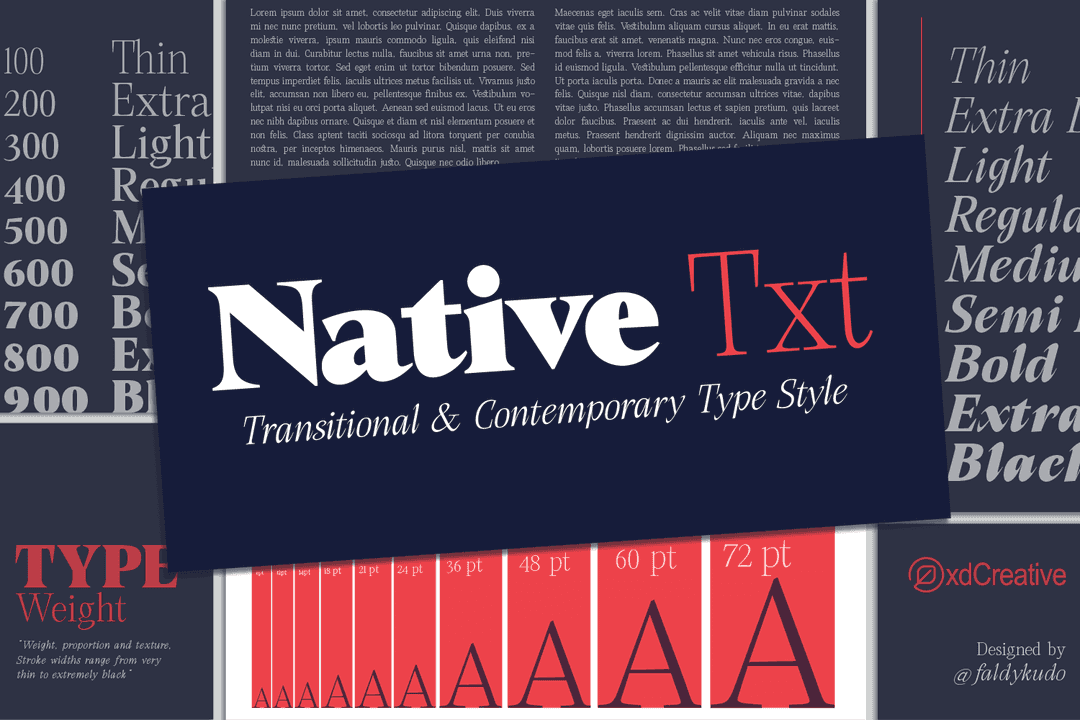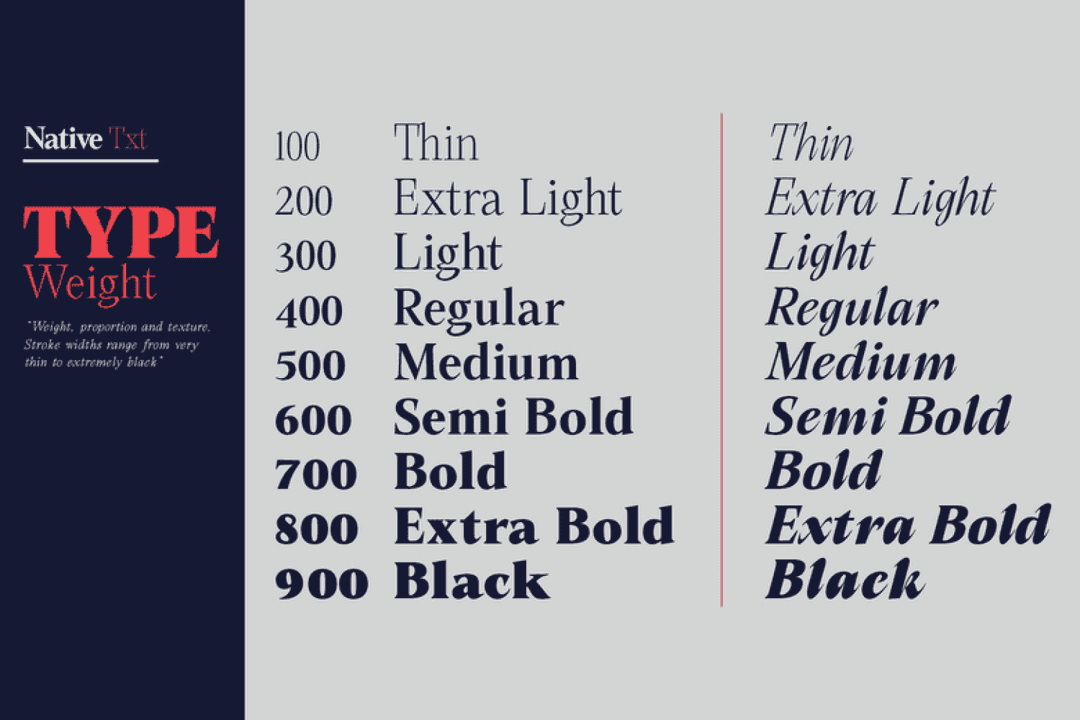
Native-Txt is an intriguing mix of contemporary and transitional font styles, featuring variable stress angles as well as more contrast in its stroke. Available in various styles with big heights sporting bracketed serifs that lighten with age; its square terminal also adds lightness.